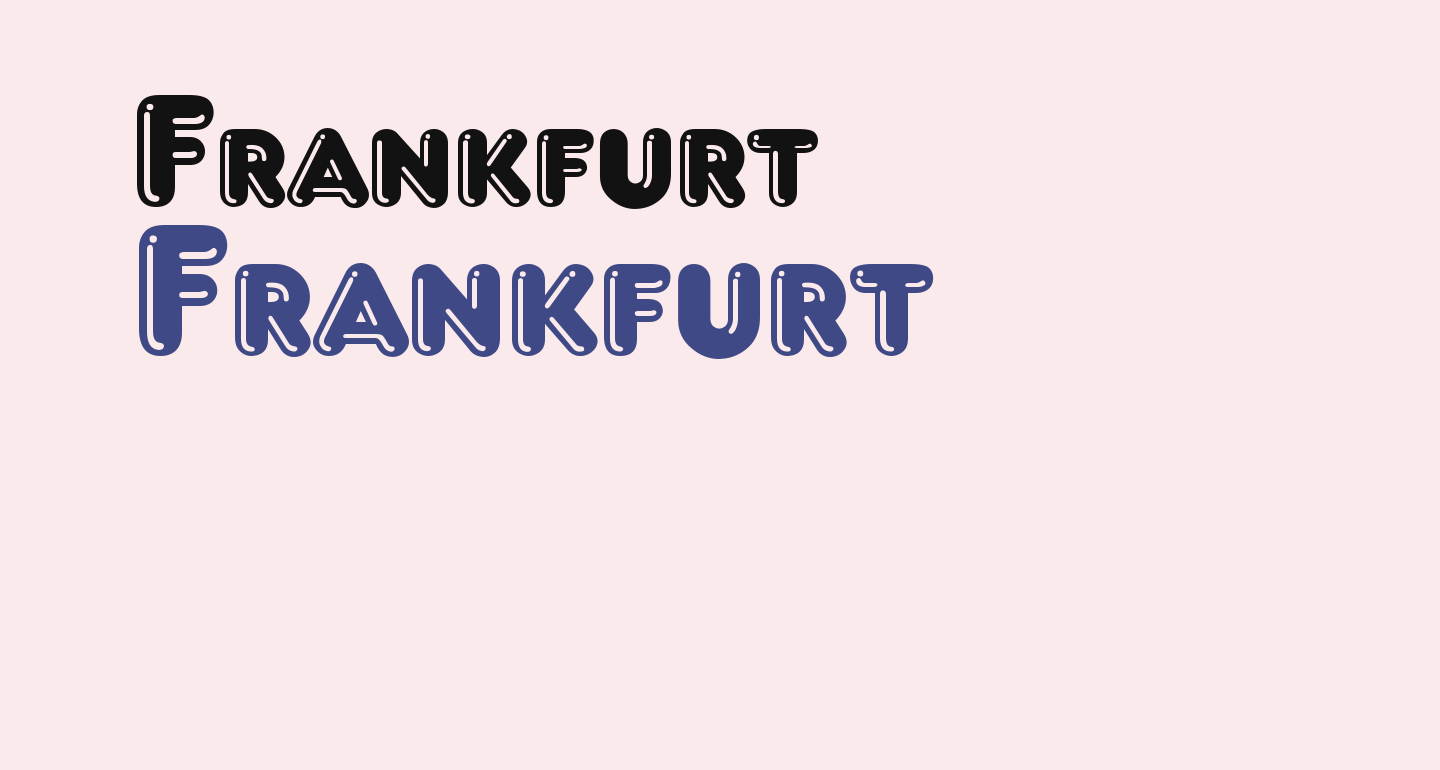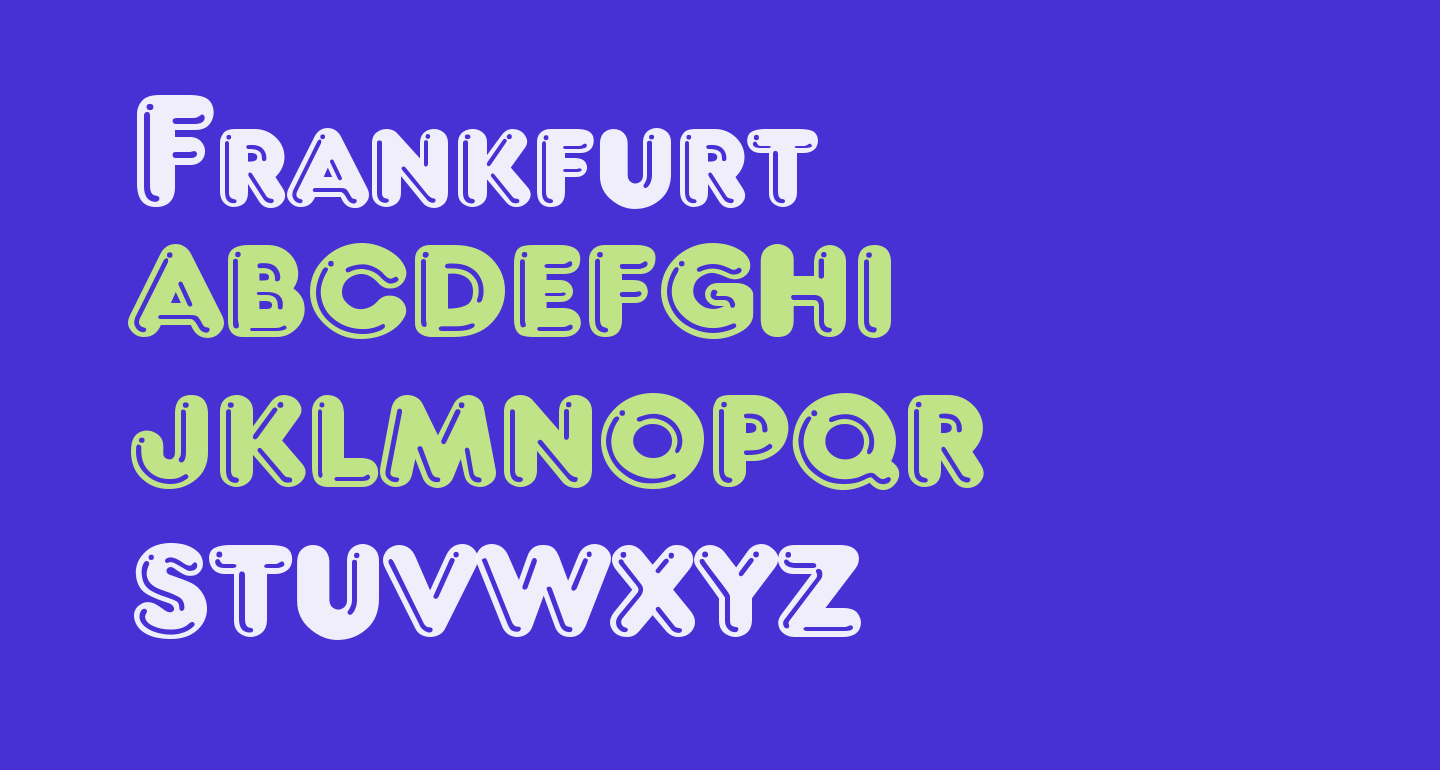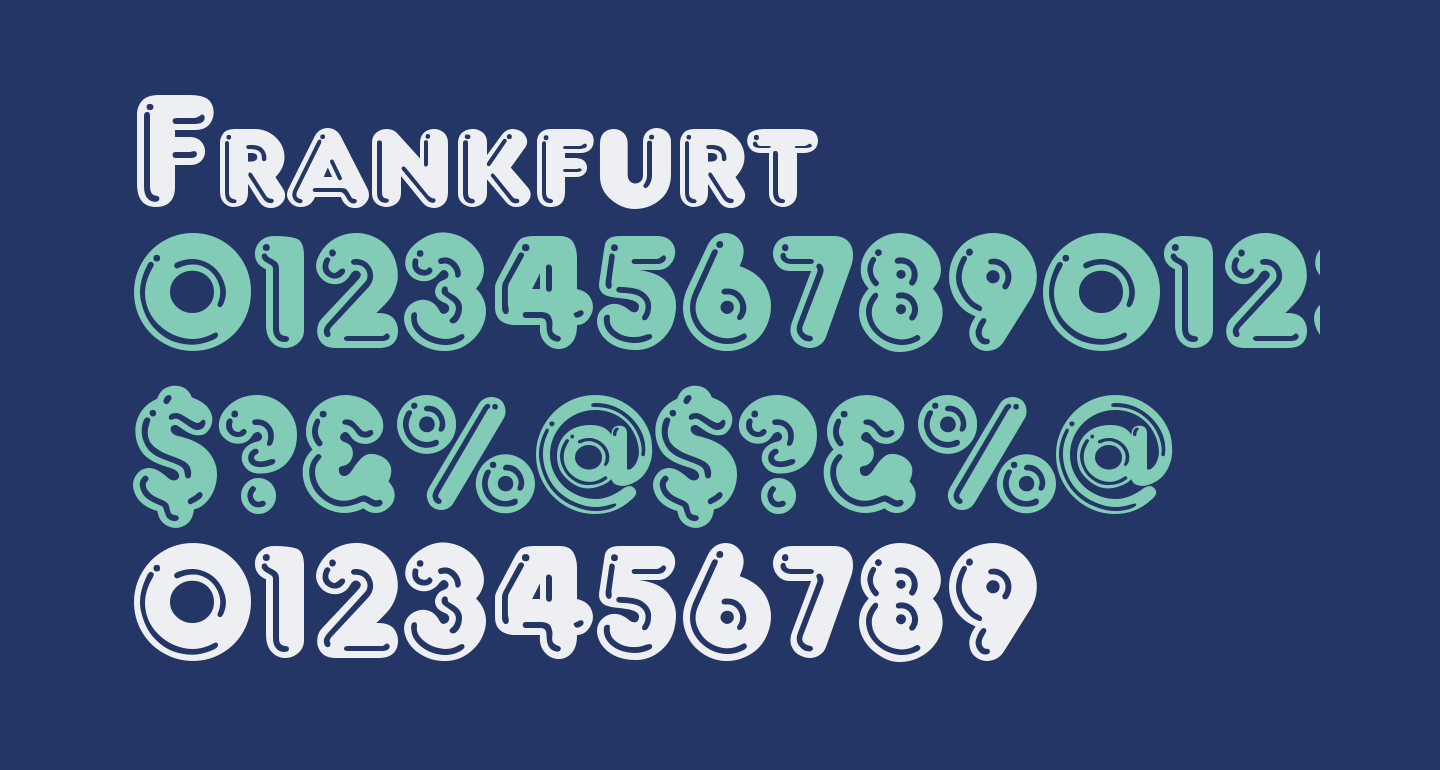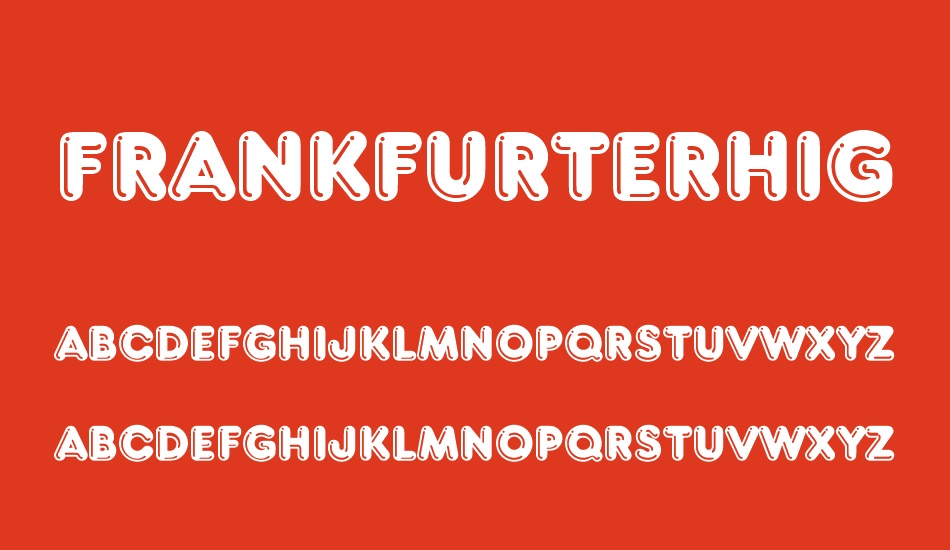
Frankfurter Font Generator . Released in 2019 by ultra cool fonts and licensed for personal. The most distinctive feature of this informal, sans serif typeface is its curved or rounded terminals.
Click to find the best 1 free fonts in the frankfurter style. Web looking for frankfurter fonts? The original (heavy) weight was designed by bob newman in the letraset studio and issued in 1970.
In 1978, frankfurter medium (the. Web frankfurter font is the work of designer alan meeks. 4,5/5 (844)
Frankfurter Font Generator - Released in 2019 by ultra cool fonts and licensed for personal. Web fontget has the largest selection of frankfurter fonts and the best frankfurter generator in the marketplace. 263,786 downloads (36 yesterday) 3 comments 100% free. Web frankfurter font is the work of designer alan meeks. The original (heavy) weight was designed by bob newman in the letraset studio and.
Frankfurter Font Generator - Web download free opti frankfurter medium font, view its character map. The most distinctive feature of this informal, sans serif typeface is its curved or rounded terminals. 4,5/5 (844) Web looking for frankfurter fonts? 4,5/5 (844)
Frankfurter Font Generator - Web frankfurter font is the work of designer alan meeks. Web free download of franxurter font. The original (heavy) weight was designed by bob newman in the letraset studio and issued in 1970. Released in 2019 by ultra cool fonts and licensed for personal. Web fontget has the largest selection of frankfurter fonts and the best frankfurter generator in the.
Frankfurter Font Generator - Every font is free to download! Web looking for frankfurter fonts? The most distinctive feature of this informal, sans serif typeface is its curved or rounded terminals. Released in 2019 by ultra cool fonts and licensed for personal. Web free download of franxurter font.
Frankfurter Font Generator - Click to find the best 1 free fonts in the frankfurter style. Web fontget has the largest selection of frankfurter fonts and the best frankfurter generator in the marketplace. Web download free opti frankfurter medium font, view its character map. Web free download of franxurter font. Frankfurter venetian à by gary david bouton.
Frankfurter Font Generator - Web looking for frankfurter fonts? Click to find the best 1 free fonts in the frankfurter style. Web frankfurter font is the work of designer alan meeks. The original (heavy) weight was designed by bob newman in the letraset studio and issued in 1970. 4,5/5 (844)
Frankfurter Font Generator - Web download free opti frankfurter medium font, view its character map. Click to find the best 1 free fonts in the frankfurter style. Released in 2019 by ultra cool fonts and licensed for personal. Frankfurter venetian à by gary david bouton. Web looking for frankfurter fonts?
Frankfurter Font Generator - The original (heavy) weight was designed by bob newman in the letraset studio and issued in 1970. Web looking for frankfurter fonts? 4,5/5 (844) Web frankfurter font is the work of designer alan meeks. 263,786 downloads (36 yesterday) 3 comments 100% free.
Frankfurter Font Generator - Click to find the best 1 free fonts in the frankfurter style. Web free download of franxurter font. Released in 2019 by ultra cool fonts and licensed for personal. Web looking for frankfurter fonts? 4,5/5 (844)
Frankfurter Font Generator - The most distinctive feature of this informal, sans serif typeface is its curved or rounded terminals. Click to find the best 1 free fonts in the frankfurter style. Web fontget has the largest selection of frankfurter fonts and the best frankfurter generator in the marketplace. Web looking for frankfurter fonts? 4,5/5 (844)
Frankfurter Font Generator - 4,5/5 (844) Web free download of franxurter font. Click to find the best 1 free fonts in the frankfurter style. 4,5/5 (844) 263,786 downloads (36 yesterday) 3 comments 100% free.
Frankfurter Font Generator - Frankfurter venetian à by gary david bouton. 263,786 downloads (36 yesterday) 3 comments 100% free. Every font is free to download! Web download free opti frankfurter medium font, view its character map. Click to find the best 1 free fonts in the frankfurter style.
Frankfurter Font Generator - Web looking for frankfurter fonts? Web download free opti frankfurter medium font, view its character map. 263,786 downloads (36 yesterday) 3 comments 100% free. Web frankfurter font is the work of designer alan meeks. 4,5/5 (844)